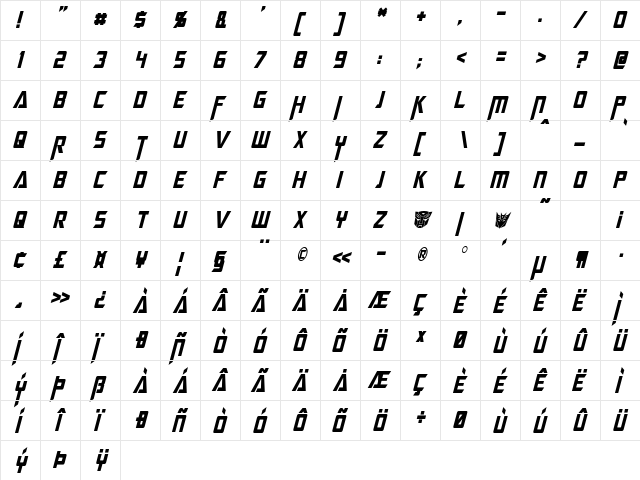
Megatron Condensed Italic Font Preview
| Foundry | Neale Davidson |
| Designer | Neale Davidson |
Design Context for Megatron Condensed Typeface
Megatron Condensed offers clean, dependable letterforms without strong stylistic allegiance, making it a practical choice for designers who need flexibility. The slanted form adds forward momentum and visual energy. The condensed width makes it efficient for tight spaces without sacrificing legibility.
Pro Tip: Try Megatron Condensed for annotation and caption copy alongside an upright companion — the contrast in angle creates a dynamic but ordered typographic system.